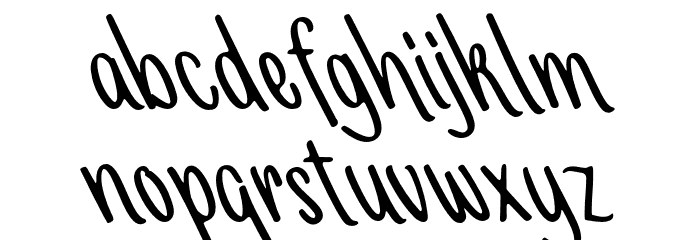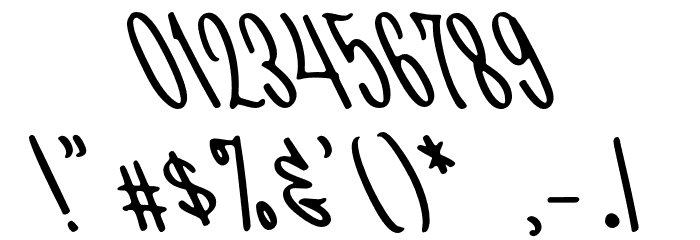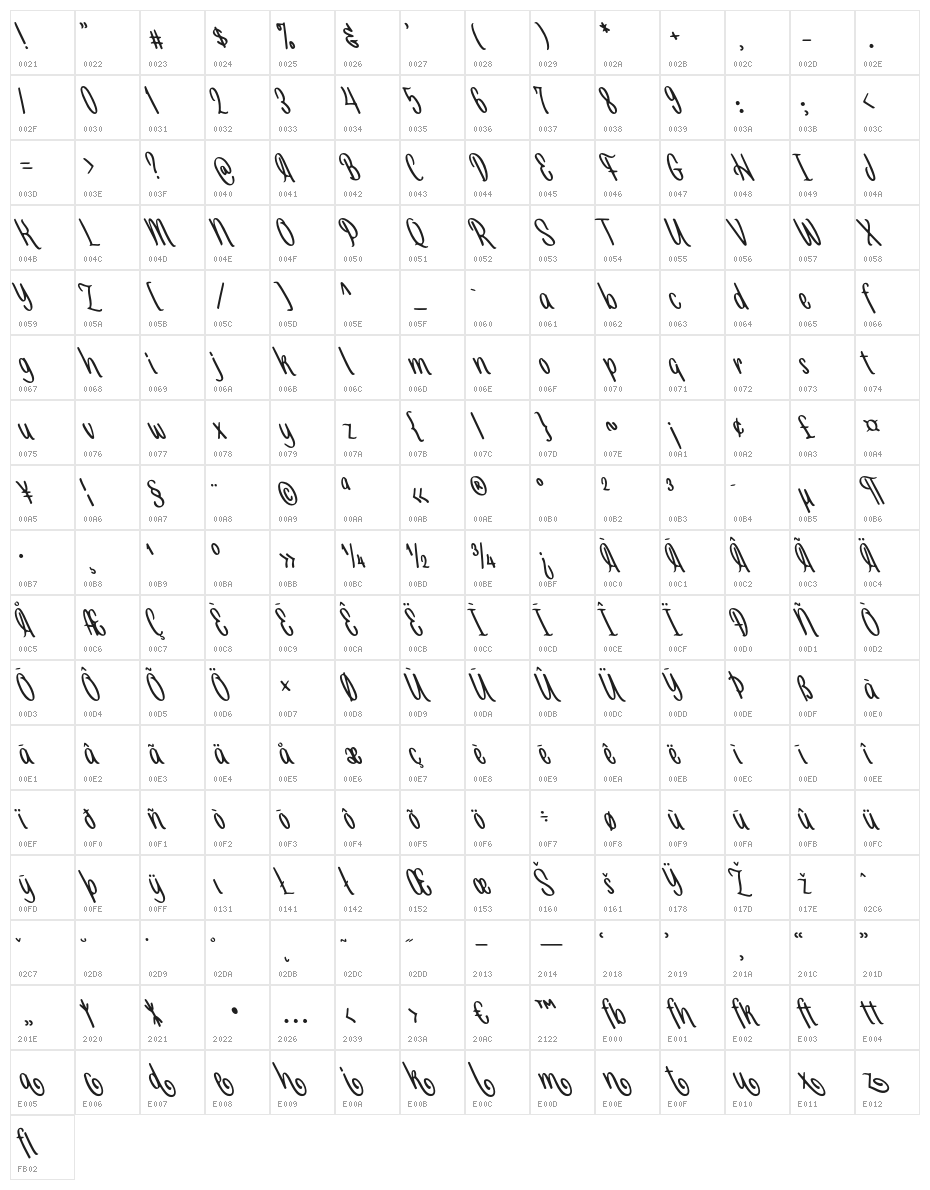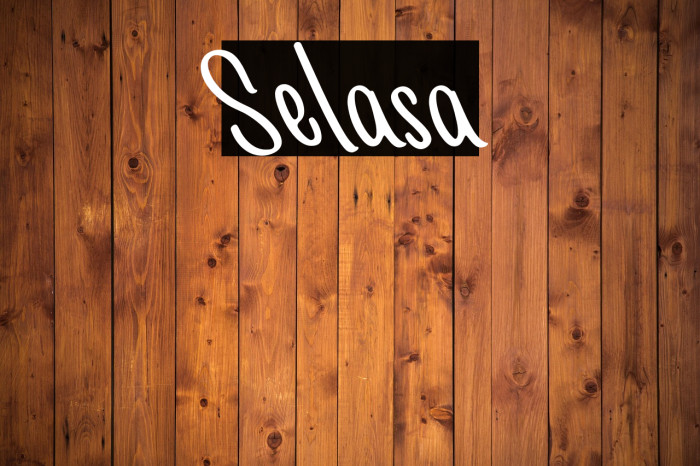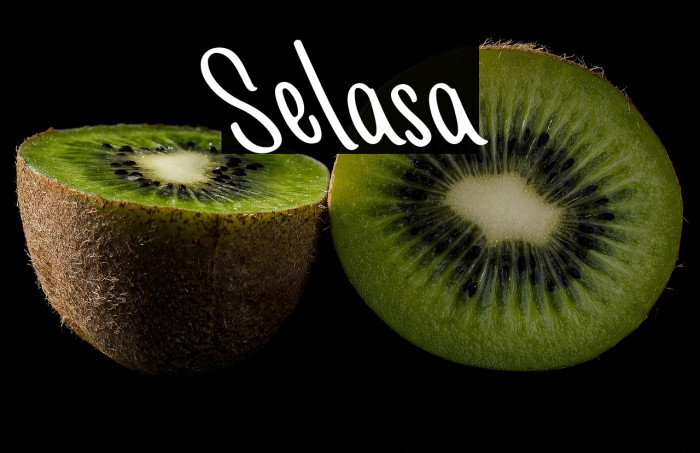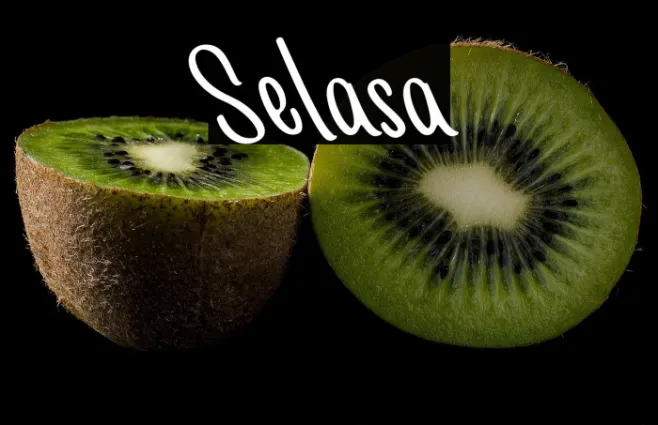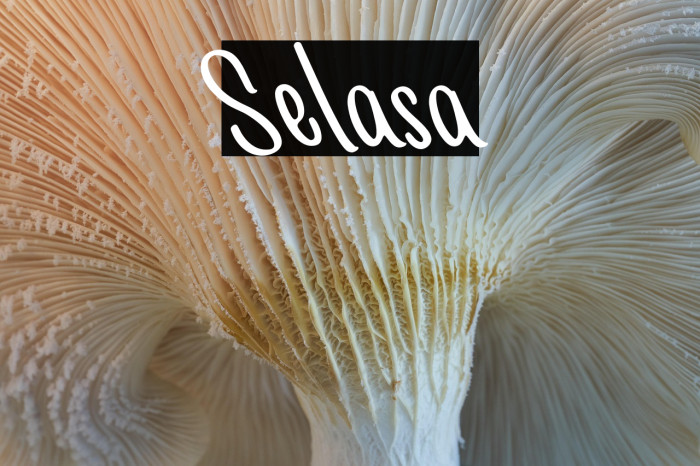
Selasa Font
This font features a playful and energetic handwritten style, characterized by its flowing and slightly irregular strokes. The letters have a casual, informal appearance, with a slight slant that adds to its dynamic feel. The uppercase and lowercase letters maintain a consistent style, with rounded edges and a smooth flow. Numbers and special characters are designed to match the overall aesthetic, ensuring a cohesive look across all text elements. The font's unique charm makes it suitable for projects that require a personal touch or a sense of whimsy.
A playful, handwritten font with flowing, slightly irregular strokes.
- Font: Selasa
- Proposed Projects: Ideal for greeting cards, invitations, personal branding, and creative projects that require a whimsical touch.
- Use Case: Logos, Invitations, Greeting Cards